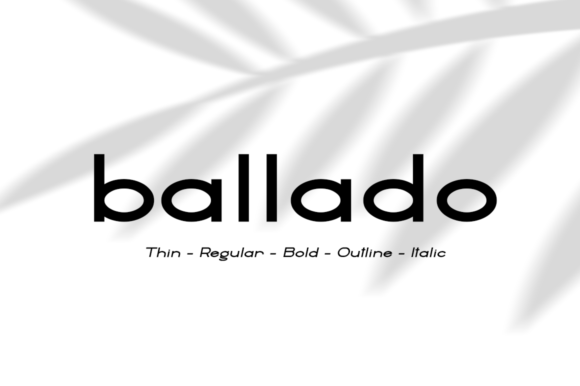
The Perfect Harmony: Discovering Ballado Font
Have you ever been working on a design project, staring blankly at your computer screen, desperately searching for the right font to bring your vision to life? You know that feeling when you finally stumble upon the perfect combination of style and functionality, and everything just clicks into place? That’s exactly what happened when designers discovered the Ballado Font.
This sleek and modern sans serif font boasts a geometric look that’s not only visually stunning but also incredibly versatile. Whether you’re working on a logo, brochure, or website, the Ballado Font is the perfect companion to elevate your design game. Its clean lines and minimalistic approach make it a valuable asset for designers looking to create a professional and modern aesthetic.
With the Ballado Font, you can say goodbye to design stress and hello to a world of creative possibilities. Its timeless design ensures that your projects will remain relevant and stylish for years to come, making it a must-have in every designer’s toolkit.
Ballado Font Key Features
- Unique Characteristics: Ballado Font features a unique blend of modern and classic elements, with a focus on elegant and refined typography.
- Font Style: The font is available in a single style, but with multiple weights, from Light to Bold, allowing for a range of design options.
- Language Support: Ballado Font supports a wide range of languages, including Latin, Cyrillic, and Greek alphabets.
- Scalability: The font is designed to be highly scalable, making it suitable for use in a variety of design applications, from small text to large headlines.
Ballado Font Review
When I first laid eyes on the Ballado font, I knew it was something special ✨. The elegant, vintage vibe immediately caught my attention, and I was excited to dive in and explore its features.
- Unique aesthetic: Ballado’s blend of modern and vintage elements creates a truly one-of-a-kind look that’s sure to turn heads ✨.
- High-quality glyphs: The font’s character set is well-designed and comprehensive, making it perfect for a wide range of applications.
- Good legibility: Ballado’s clear, readable design ensures that your text will be easily understood by your audience.
- Not suitable for all audiences: Ballado’s vintage aesthetic may not be to everyone’s taste, particularly those who prefer more modern or minimalist fonts ⚠️.
- Potential for overuse: The font’s unique style can be a bit too “on the nose” for some designers, leading to overuse and visual fatigue.
Overall, I’d give Ballado a solid 4 out of 5 stars. While it may not be the perfect fit for every project, it’s a great choice for designers looking to add some vintage flair to their work. With its high-quality glyphs and unique aesthetic, Ballado is sure to become a go-to font for many designers in the future.
Getting the Most Out of Ballado Font
For optimal results, use Ballado Font for titles, headings, and other emphasis text. It pairs well with sans-serif fonts for body text.
Experiment with different font sizes and colors to achieve a balanced and visually appealing design.
Ballado Font is suitable for:
1. Creative projects, such as posters, flyers, and brochures.
2. Branding and marketing materials, such as logos and business cards.
3. Digital designs, such as websites and social media graphics.